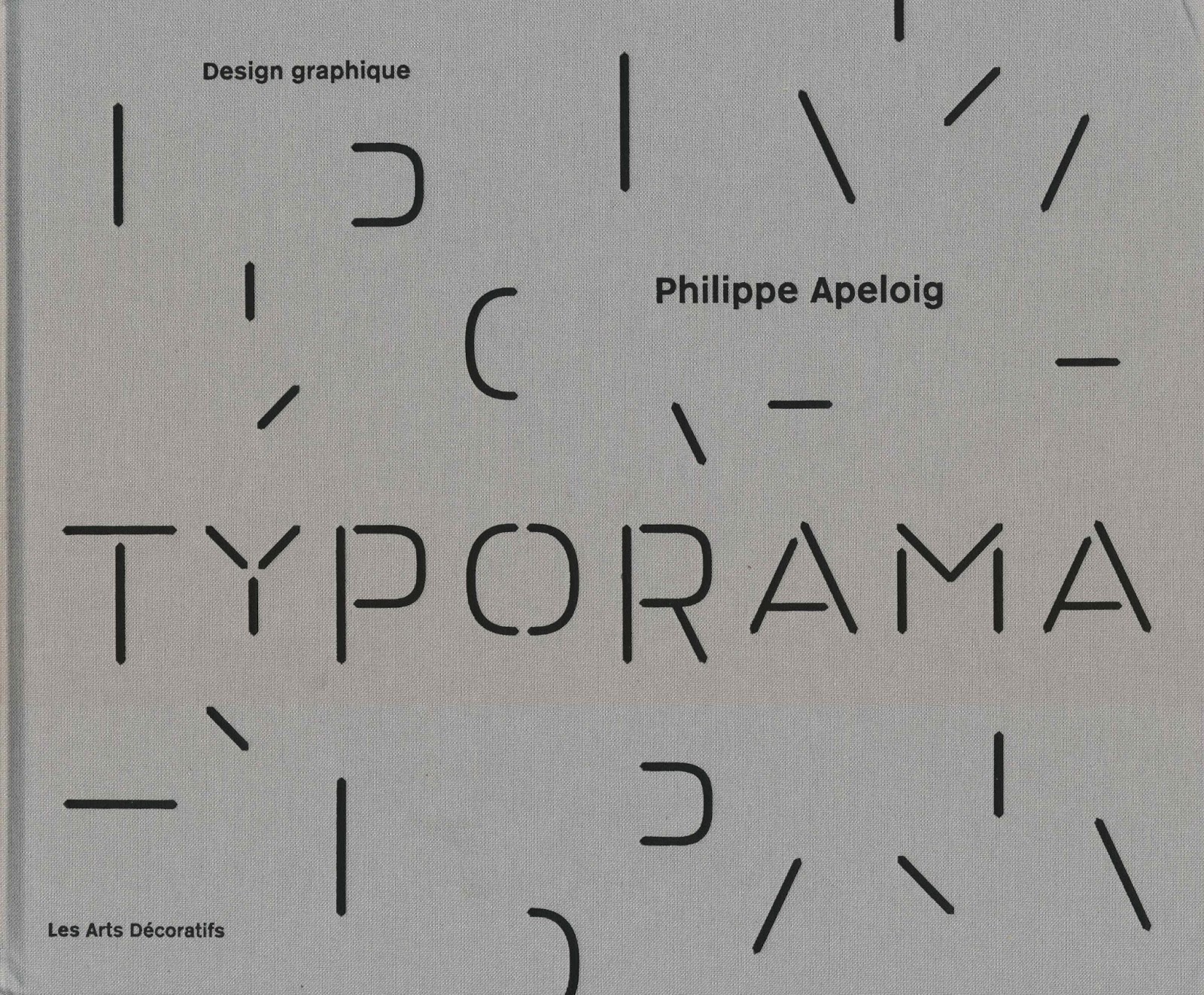
Typography: Typorama
Typorama is an exhibition of Philippe Apeloig’s graphic design work at Les Arts Décoratifs, from November 21, 2013 to March 30, 2014. Design Boom has some excellent photographs of the exhibition.
While preparing the exhibition catalogue, someone had researched Jewish culture in New York City. The Garden Cafeteria was a meeting-place for some of the Jewish intellectuals, beginning in the 1940s, in Manhattan’s Lower East Side. Place Matters has a 23-paragraph article on the history of the Garden Cafeteria. (Click “read more” for the complete article.) The Jewish Museum has a photograph of the cafeteria.
This research was associated with Apeloig’s poster, “Radical Jewish Culture: Scene Musicale, New York”. Below is the description, in French, from the Typorama catalogue, followed by a Google translation. (The English edition is available from Thames & Hudson.)
En 2010, le musée d'Art et d’Historie du Judaisme a présenté l’exposition “Radical Jewish Culture” consacrée au label new-yorkais de musique expérimentale du meme non. Ce groupe de compositeurs et d’interpretes a inventé une musique hybride qui jette un pont entre l’avant-garde et la tradition. Ses influences vont de la musique klezmer a Lou Reed, en passant par Steve Reich.
L’affiche donne l’impression d’être le cliché d’un graffiti du Lower East Side a Manhattan, quartier des premiers émigrants juifs a New York, puis lieu de prédilection des compositeurs et de nombreux artistes. Aujourd’hui transformé, il conserve néanmoins quelques éléments des enseignes des nombreuses boutiques et lieux de culte. Sur beaucoup d’immeubles, les vielles lettres ont été recouvertes de nouveaux éléments des communautés hispaniques et chinoises qui s’y sont installées. Ces murs et ces façades ornés sont devenus les témoignages vivants du passage du temps et des cultures.
Sur l’affiche, on découvre des notations du compositeur John Zorn, le leader du Radical Jewish Culture, qui tiennent a la fois de l’écriture musicale et du graffiti. Des lettres très arrondies conçues comme des pochoirs ont été dessinées pour évoquer la musique expérimentale, rappelant également les enseignes lumineuses d’autrefois. Les noms des artistes, composés en petites capitales jaune flou, sont disposés un peu partout dans le canevas formé par le titre.
In 2010, the Museum of Art and History of Judaism presented the exhibition “Radical Jewish Culture” dedicated to the New York experimental music label of the same name. This group of composers and performers invented a hybrid music that bridges the gap between the avant-garde and tradition. His influences range from klezmer music, Lou Reed, through Steve Reich.
The poster gives the impression of being the picture of Lower East Side graffiti in Manhattan, a neighborhood of the first Jewish immigrants in New York and a favorite place for many composers and artists. Now transformed, it still retains some signs of many shops and places of worship. On many buildings, old letters were covered with new elements of Hispanic and Chinese communities who have settled there. These walls and the ornate façades have become living witnesses to the passage of time and cultures.
On the poster, notations of composer John Zorn, the leader of Radical Jewish Culture, which both songwriting and graffiti are found. Of stencils designed as very rounded letters were designed to evoke experimental music, recalling the old neon signs. Artist names, in small yellow capitals are arranged around the outline formed by the title.
Composer/musician John Zorn was profiled this summer in the New York Times. Zorn’s music label is Tzadik and he wrote about Radical Jewish Culture.
Here are scans of the catalogue cover and pages 202 and 203. The image of the Garden Cafeteria photograph is about the size of a credit card.